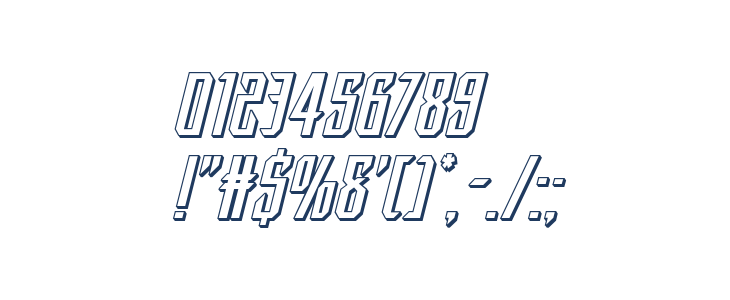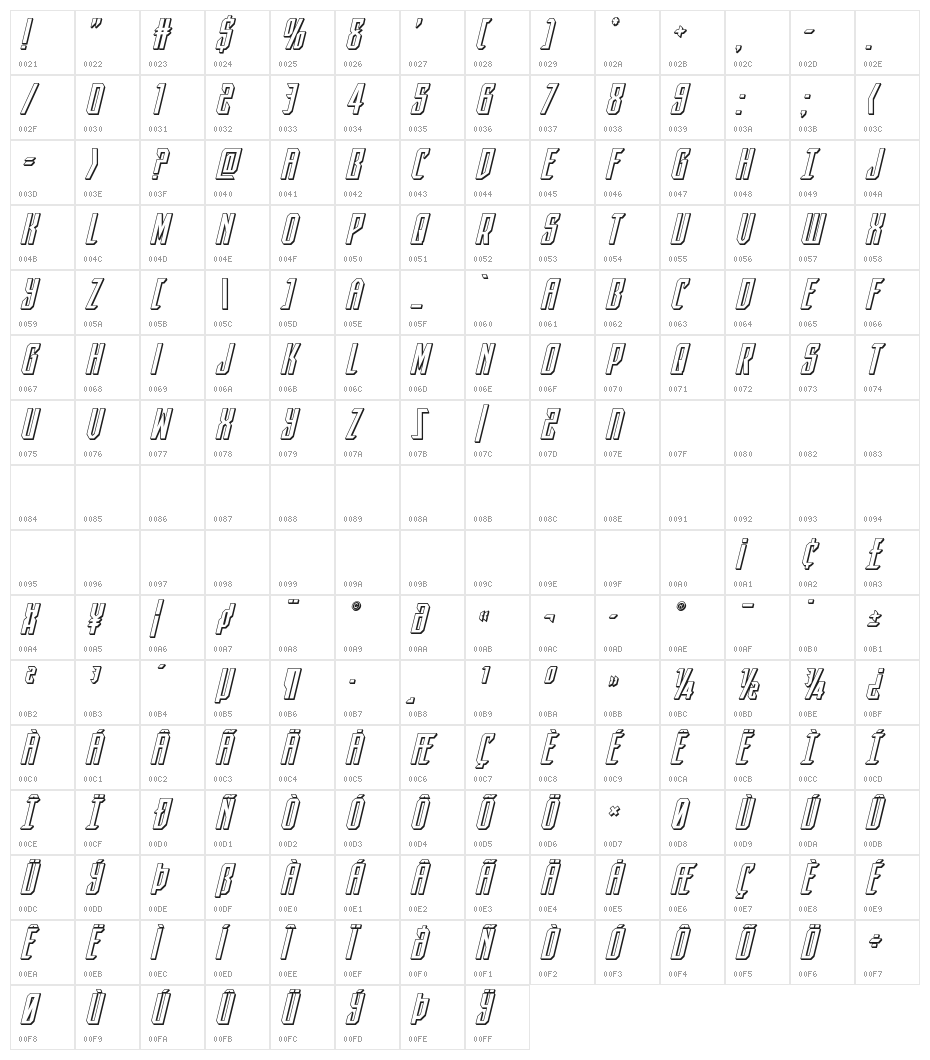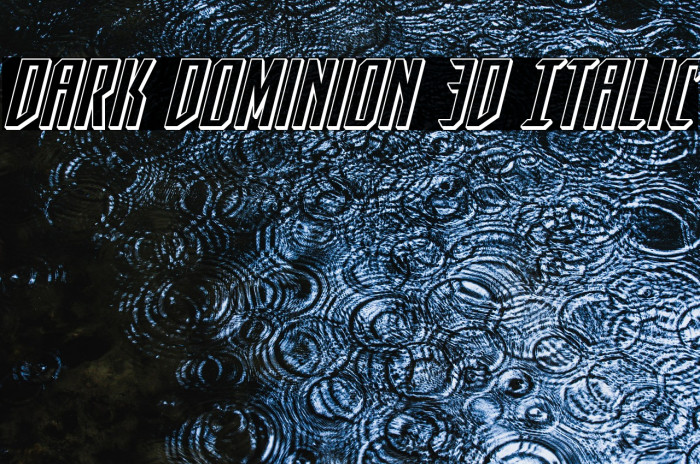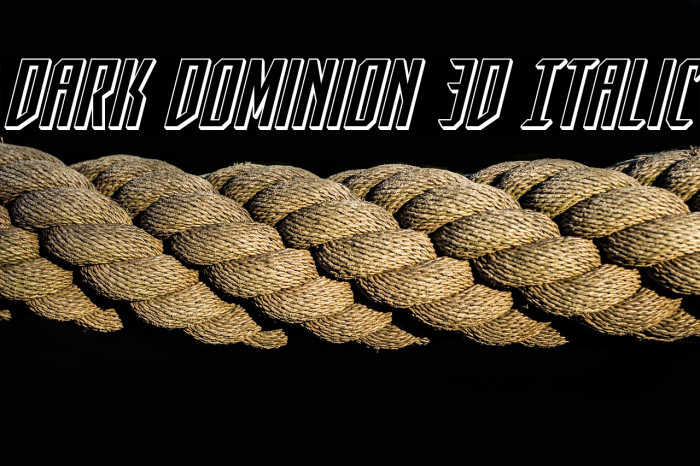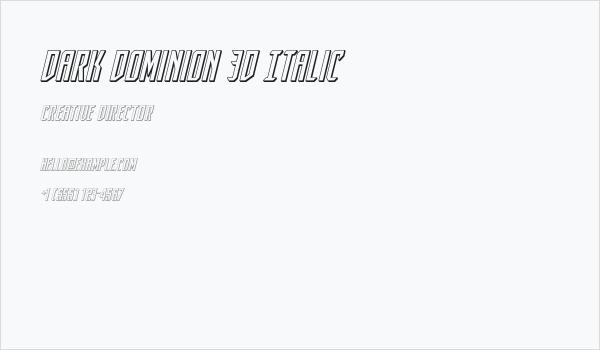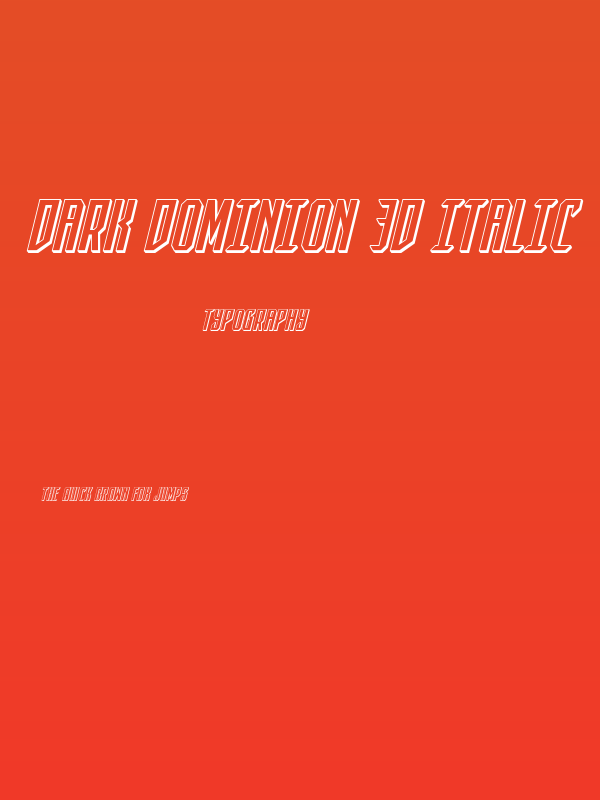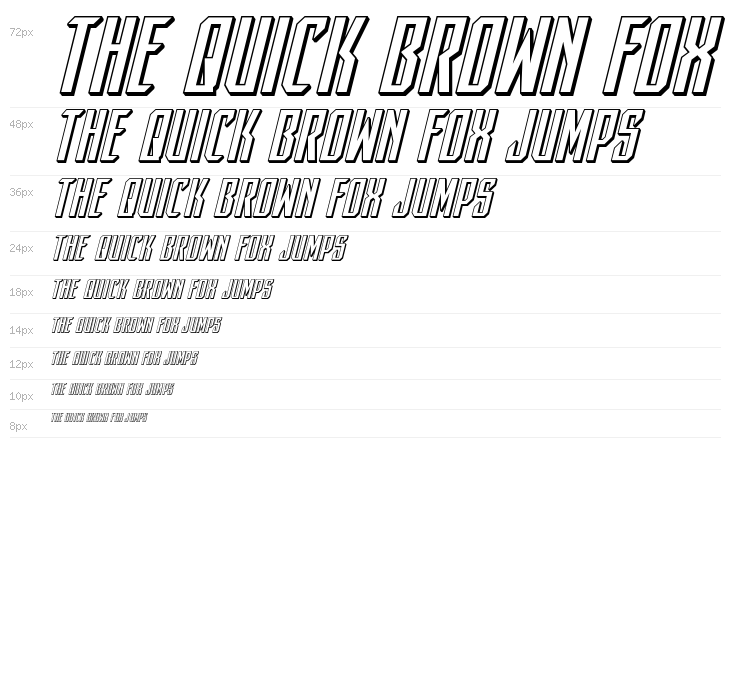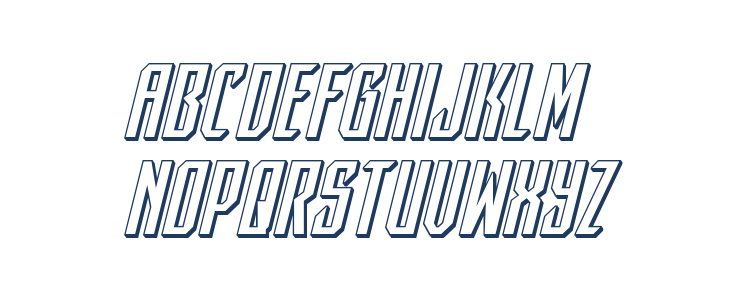
Dark Dominion 3D Italic Font
Dark Dominion 3D Italic Description
This font features a bold, three-dimensional design with an italic slant, giving it a dynamic and futuristic appearance. The characters are outlined with a thick border, enhancing the 3D effect and providing a sense of depth. The angular, geometric shapes of the letters contribute to a modern and edgy style, making it stand out in any design. The uppercase and lowercase letters maintain a consistent style, while the numerals and special characters are crafted to match the overall aesthetic. This font is ideal for projects that require a strong visual impact.
Proposed ProjectsIdeal for video game titles, movie posters, branding for tech companies, and any project needing a modern, impactful look.